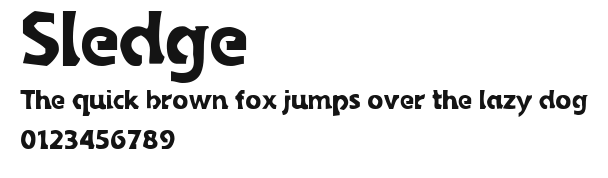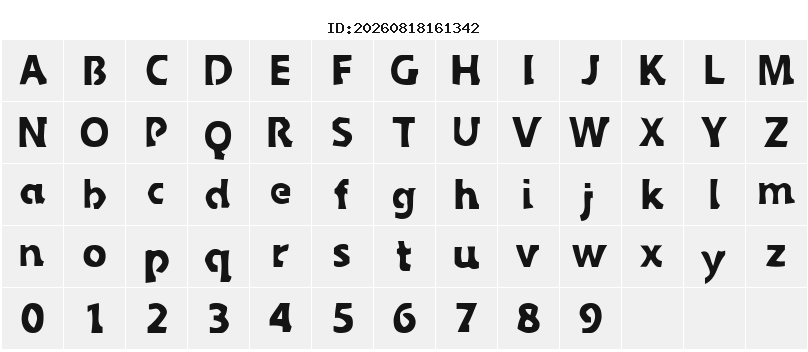
Sledge Preview
• Font Name: Sledge
• Full Font Name: Sledge
About Sledge.ttf
Sledge.ttf is a modern, elegant sans-serif font designed for ultimate readability and visual harmony. Perfect for branding, headlines, web design, and print materials.